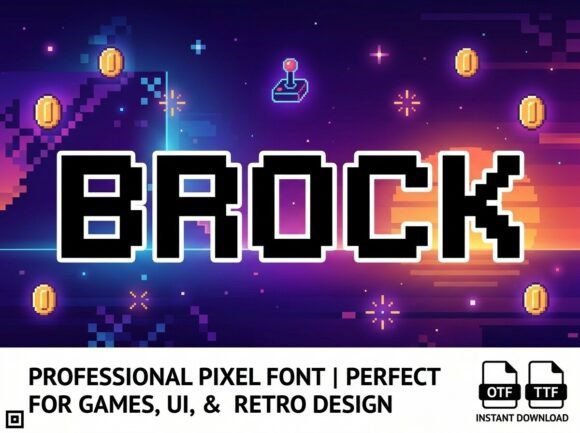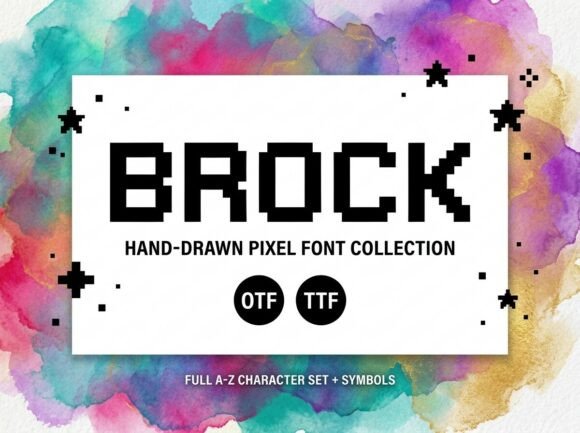
Level Up Your Digital Aesthetic with Brock: The Ultimate Hand-Drawn Pixel Font
In the world of digital design, fonts play a crucial role in conveying the tone and aesthetic of a brand or project. For those looking to tap into the nostalgic charm of retro gaming, Brock Font is the perfect choice. This hand-drawn pixel font is designed to capture the essence of 8-bit arcade games, while offering a unique, organic feel that sets it apart from rigid, machine-generated pixel fonts.
The Nostalgic Appeal of Brock Font
Brock Font is a masterful blend of old-school charm and modern design sensibilities. Its bold, blocky weight and digital rhythm evoke the classic arcade games of the 80s and 90s, while its subtle organic irregularities give it a warm, indie-game feel. This unique combination makes Brock the ideal choice for designers and crafters looking to create retro-themed merchandise, independent game dev branding, and high-impact social media headers.
What Sets Brock Apart
So, what makes Brock Font stand out from other pixel fonts on the market? The answer lies in its hand-drawn design. Unlike machine-generated pixel fonts, which can often appear rigid and uniform, Brock features subtle irregularities that give it a warm, human touch. This organic feel is perfect for designers looking to create a unique and distinctive aesthetic for their projects.
Use Cases for Brock Font
Brock Font is a versatile design tool that can be used in a variety of contexts. Here are just a few examples of how you can use Brock to level up your digital aesthetic:
- eSports Stream Overlays: Brock’s bold, blocky weight and digital rhythm make it the perfect choice for eSports stream overlays. Add a touch of retro flair to your streams and stand out from the competition.
- Retro-Themed Merchandise: Create eye-catching merchandise that taps into the nostalgia of retro gaming. From t-shirts to posters, Brock Font is the perfect choice for designers looking to create unique and memorable designs.
- Independent Game Dev Branding: Brock Font is a great choice for independent game developers looking to create a distinctive brand identity. Use Brock to create logos, headers, and other design elements that reflect the unique personality of your game.
- Cyber-Pop Social Media Headers: Make a statement on social media with bold, eye-catching headers that showcase your personality and style. Brock Font is perfect for creating high-impact headers that are sure to grab attention.
Design Tips and Tricks
To get the most out of Brock Font, here are a few design tips and tricks to keep in mind:
- Experiment with Color: Brock Font looks great in a variety of colors, so don’t be afraid to experiment and find the perfect hue for your design.
- Play with Texture: Add an extra layer of depth to your design by incorporating texture and patterns into your Brock Font design.
- Mix and Match Fonts: Brock Font pairs well with a variety of other fonts, so don’t be afraid to mix and match to create a unique and distinctive aesthetic.
Brock Font is a powerful design tool that can help you level up your digital aesthetic and tap into the nostalgic charm of retro gaming. With its bold, blocky weight and digital rhythm, Brock is the perfect choice for designers and crafters looking to create unique and memorable designs. Whether you’re creating eSports stream overlays, retro-themed merchandise, or independent game dev branding, Brock Font is the ultimate choice for designers looking to make a statement.